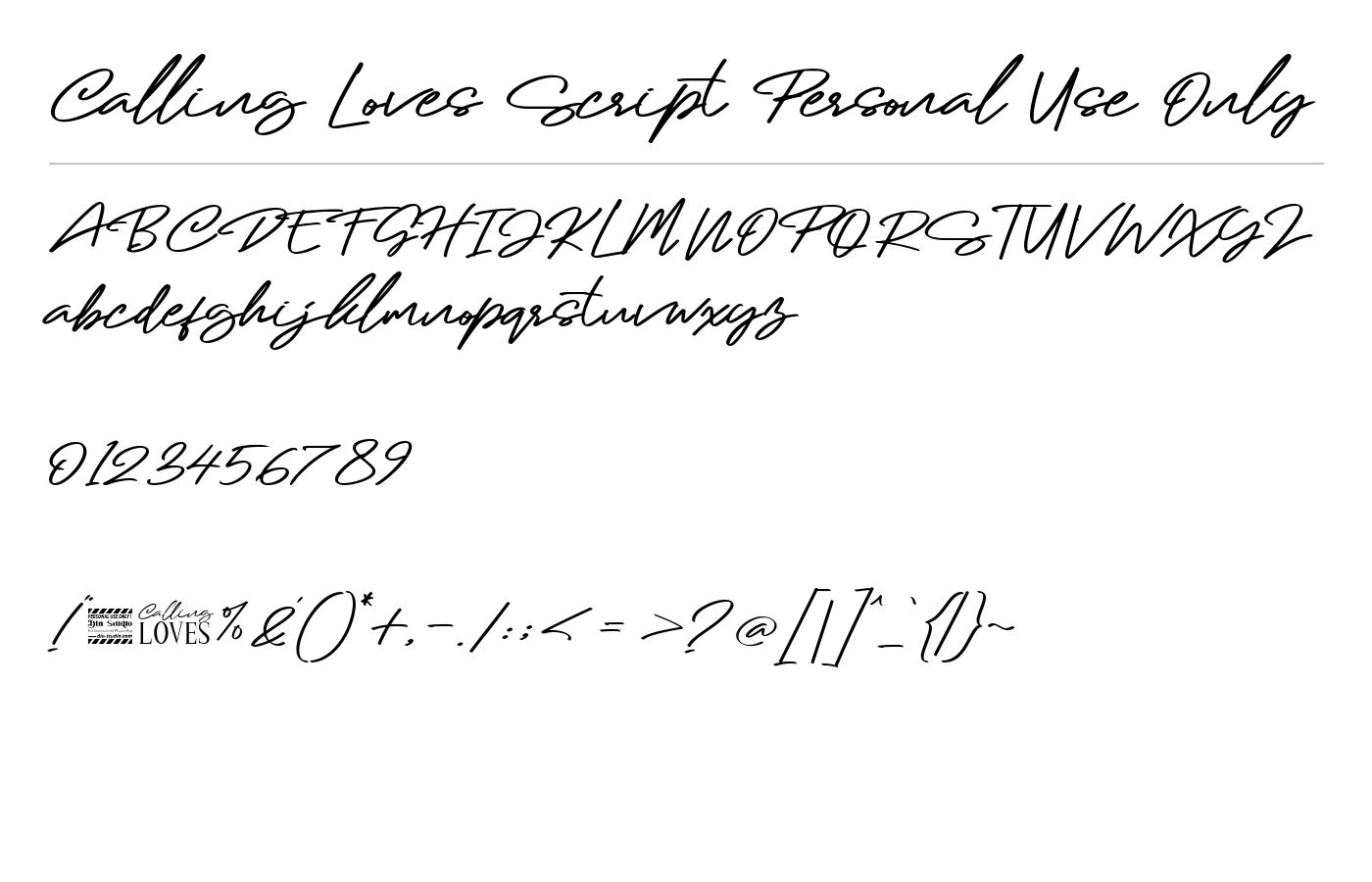
Calling Loves Script is an elegant, handwritten script font with a thin, flowing stroke that brings a personal and delicate touch to any design. Its fluid letterforms and casual style make it perfect for invitations, branding, and creative projects that seek a warm, intimate, and artistic feel. This font works well in contexts where a handwritten, friendly, and fashionable look is desired, especially in personal and lifestyle-focused designs.
Calling Loves Script Personal Font
About Calling Loves Script Personal Font